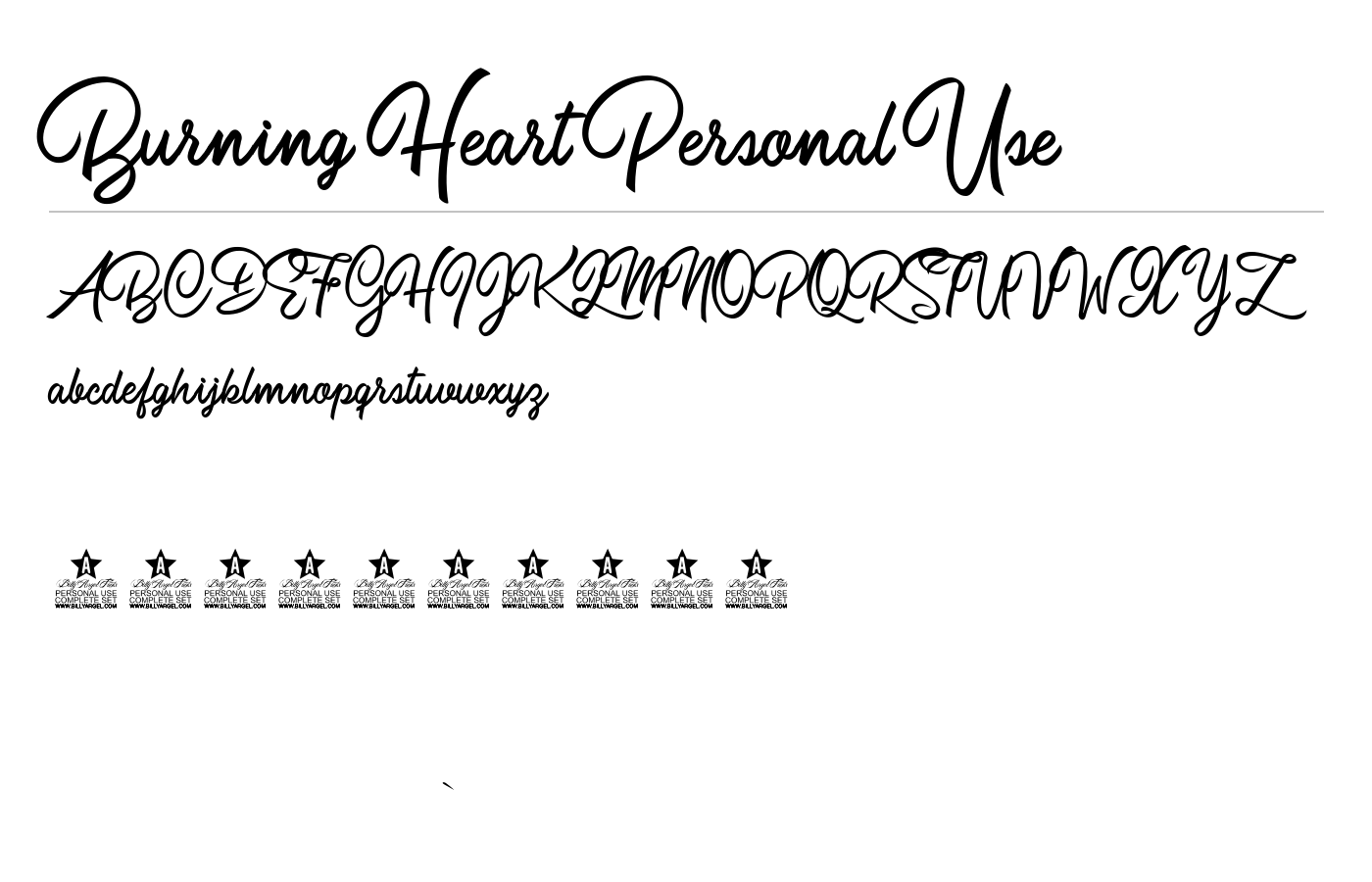
Burning Heart Personal Use is an elegant script font with a smooth, flowing style that feels both modern and romantic. Its moderate weight and clean curves make it perfect for adding a personal, handcrafted touch to invitations, branding, and stylish headlines. This font works beautifully for projects that seek a warm, sophisticated, and approachable feel.
Burning Heart Personal Use Font
About Burning Heart Personal Use Font
| Font family | Burning Heart Personal Use Font |